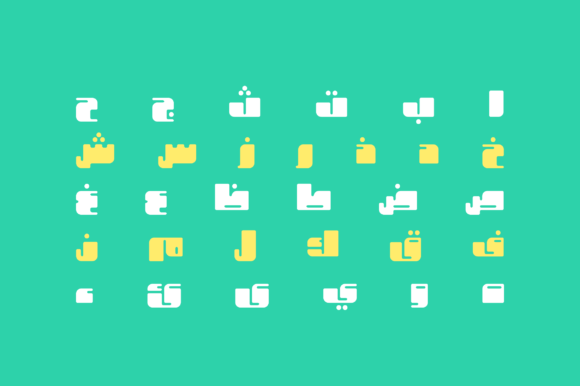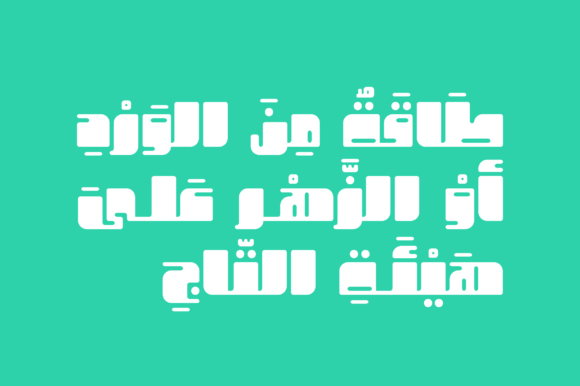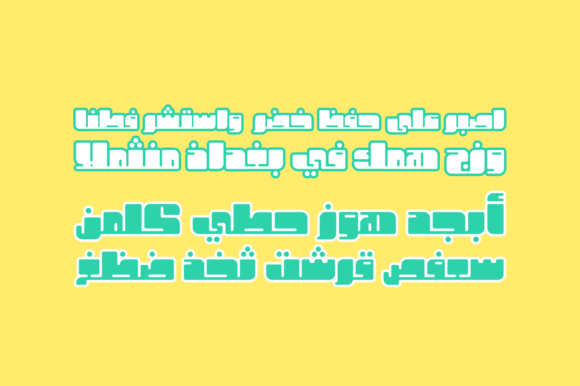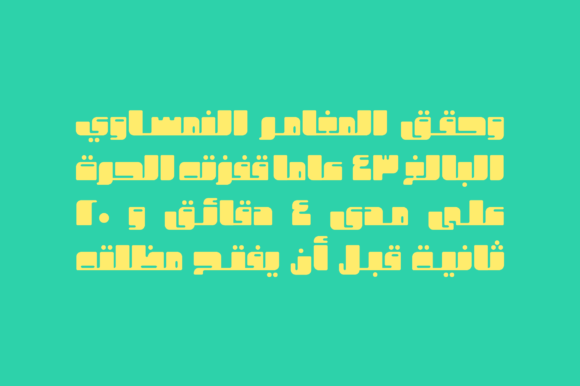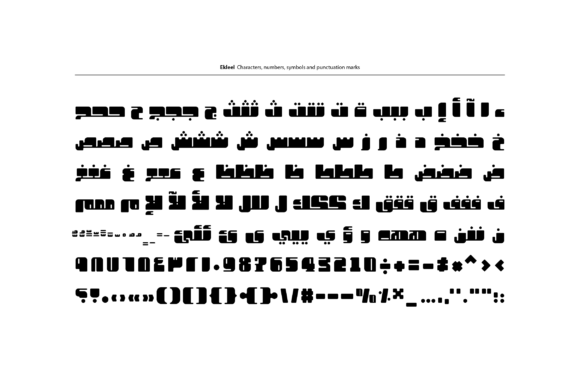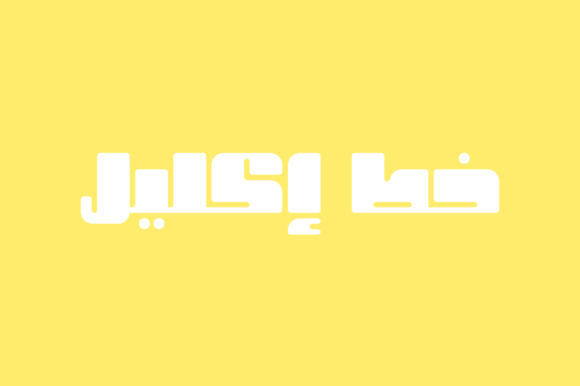
Ekleel Font: The Perfect Arabic Display Font for Your Design Needs
Are you a designer or craft looking for a unique and versatile Arabic display font to elevate your design projects? Look no further than Ekleel Font. This beautifully designed font combines casual and friendly letterforms, making it perfect for a wide range of applications, including web design, branding, advertising, and publications.
What is Ekleel Font?
Ekleel Font is an Arabic display font that boasts a distinctive and stylish design. Its casual and friendly letterforms make it an excellent choice for designers who want to add a touch of warmth and approachability to their designs. The font’s unique design elements make it stand out from other Arabic fonts, making it perfect for projects that require a bit of flair.
Key Features of Ekleel Font
Ekleel Font comes with a range of features that make it an excellent choice for designers. Some of its key features include:
- Casual and Friendly Design: Ekleel Font’s casual and friendly design makes it perfect for projects that require a warm and approachable feel.
- Arabic Display Font: Ekleel Font is specifically designed as an Arabic display font, making it perfect for use in titles, headings, and other display text.
- Versatile: Ekleel Font is incredibly versatile and can be used in a wide range of applications, including web design, branding, advertising, and publications.
- Easily Readable: Despite its decorative nature, Ekleel Font is easily readable, making it perfect for use in body text as well as display text.
Applications of Ekleel Font
Ekleel Font is an incredibly versatile font that can be used in a wide range of applications. Some of the most popular uses for Ekleel Font include:
- Web Design: Ekleel Font is perfect for use in web design, adding a touch of warmth and approachability to your website’s design.
- Branding: Ekleel Font is an excellent choice for branding projects, providing a unique and stylish way to showcase your brand’s personality.
- Advertising: Ekleel Font’s decorative nature makes it perfect for use in advertising, adding a touch of flair to your ad designs.
- Publications: Ekleel Font is also perfect for use in publications, such as magazines, newspapers, and books.
Why Choose Ekleel Font?
There are many reasons why Ekleel Font is an excellent choice for designers and crafts. Some of the top reasons to choose Ekleel Font include:
- Unique Design: Ekleel Font boasts a unique and stylish design that will elevate your designs and set them apart from the crowd.
- Versatility: Ekleel Font is incredibly versatile and can be used in a wide range of applications.
- Easily Readable: Despite its decorative nature, Ekleel Font is easily readable, making it perfect for use in body text as well as display text.
- Time-Saving: Ekleel Font is a pre-designed font, saving you time and effort in the design process.
Tips for Using Ekleel Font
Here are a few tips for using Ekleel Font in your designs:
- Use it as a Display Font: Ekleel Font is specifically designed as a display font, so use it to add a touch of flair to your titles and headings.
- Pair it with Other Fonts: Ekleel Font pairs well with other fonts, so don’t be afraid to experiment with different font combinations.
- Adjust the Size and Color: Experiment with different sizes and colors to find the perfect look for your design.
| Font Name | Ekleel Font |
| Author | Mostafa El Abasiry |
Ekleel Font is an excellent choice for designers and crafts looking for a unique and versatile Arabic display font. Its casual and friendly design makes it perfect for a wide range of applications, including web design, branding, advertising, and publications. With its easily readable design and decorative nature, Ekleel Font is sure to elevate your designs and set them apart from the crowd.